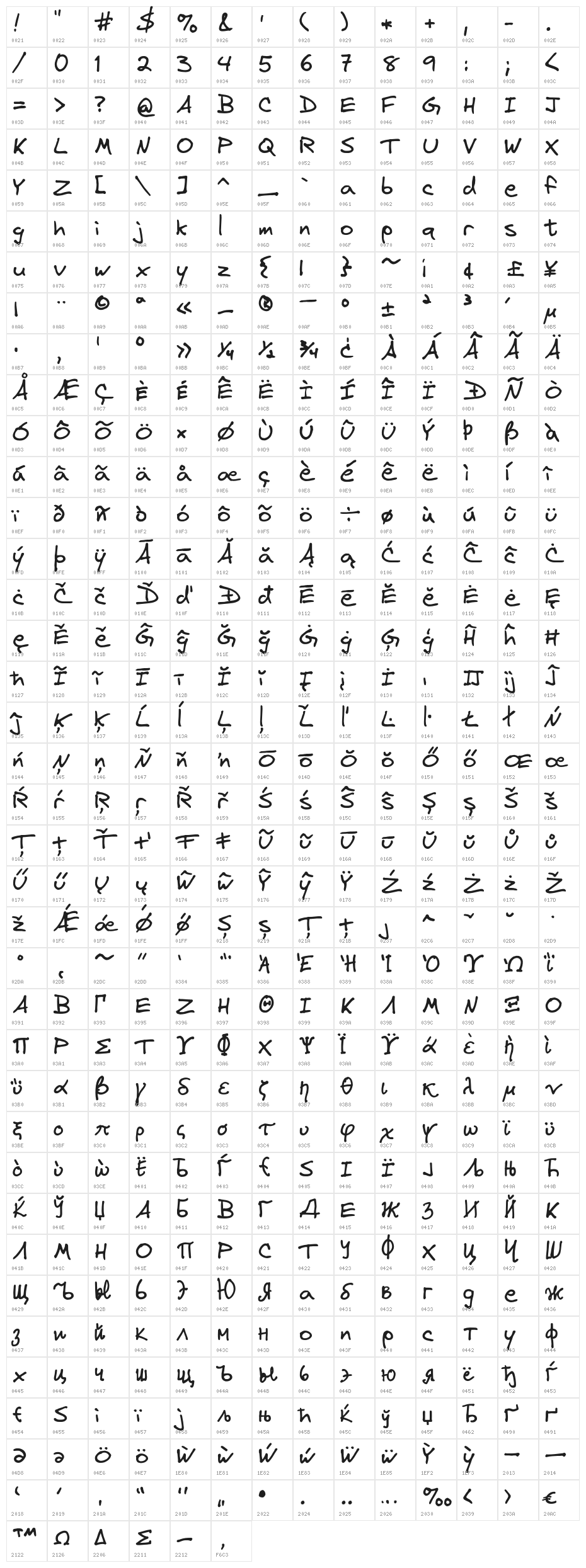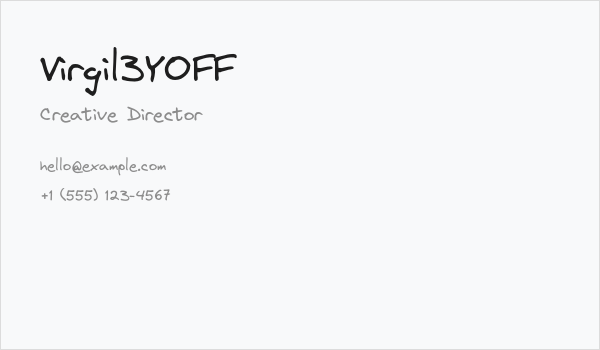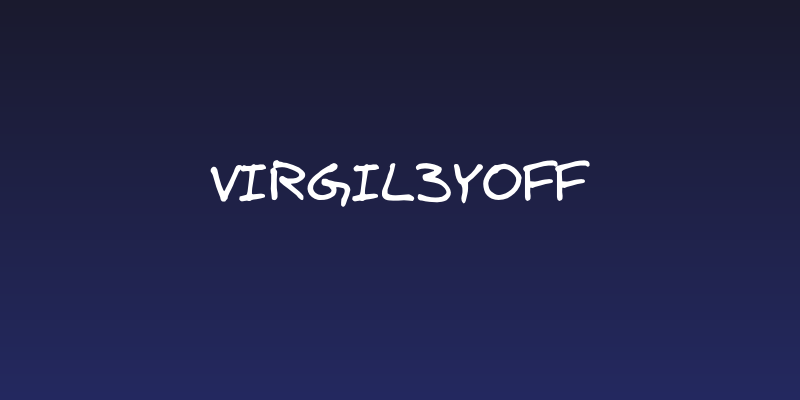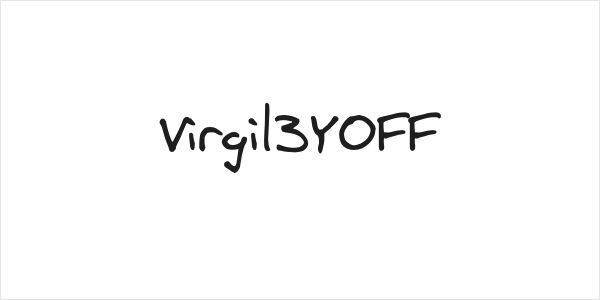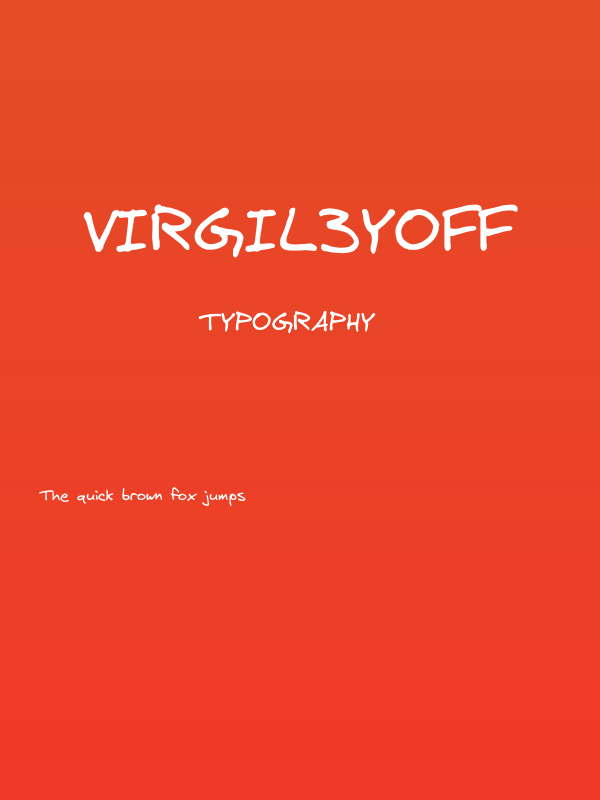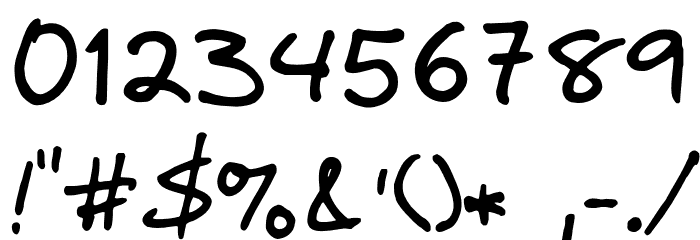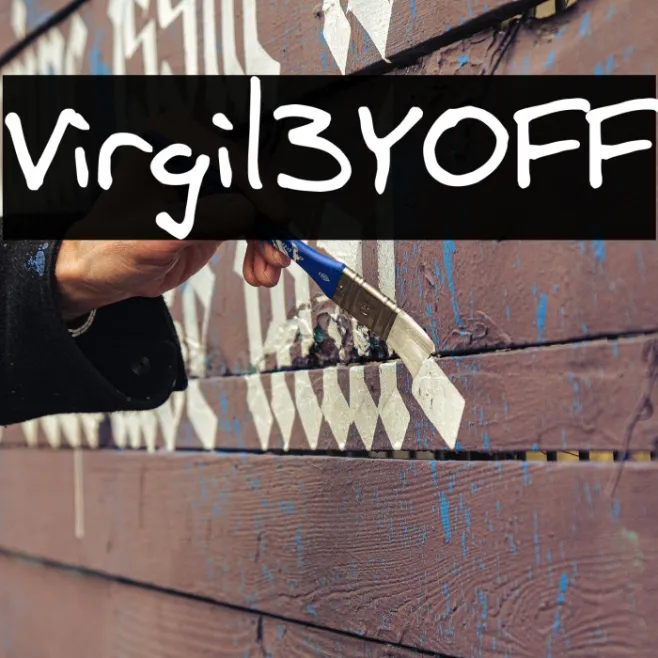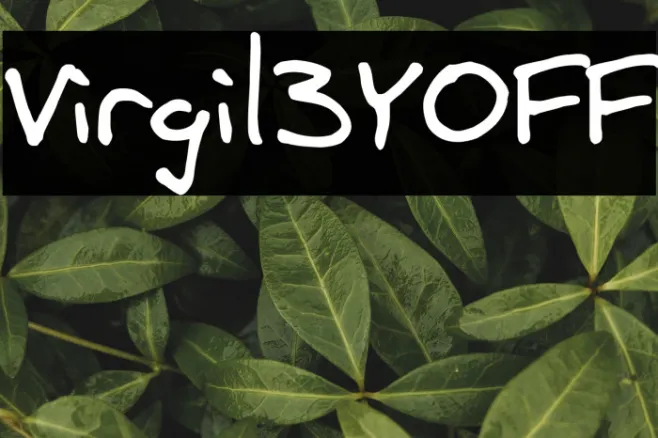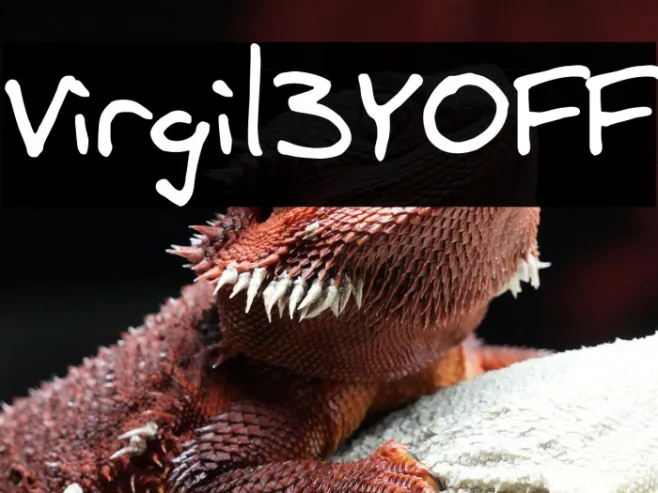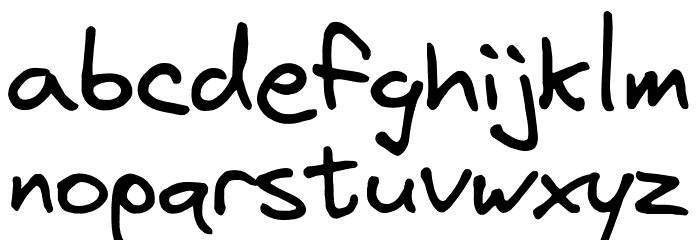
Virgil3YOFF Font
Virgil3YOFF Description
This font exudes a casual, handwritten style with a playful and approachable feel. The characters are slightly irregular, mimicking the natural flow of handwriting, which adds a personal touch to any design. The uppercase and lowercase letters maintain a consistent style, with rounded edges and a slight slant that suggests movement. Numbers and special characters are crafted with the same informal flair, making them blend seamlessly with the alphabet. This font is perfect for projects that require a friendly and informal tone, such as personal blogs, creative invitations, or children's books. Its unique style ensures that it stands out while remaining legible.